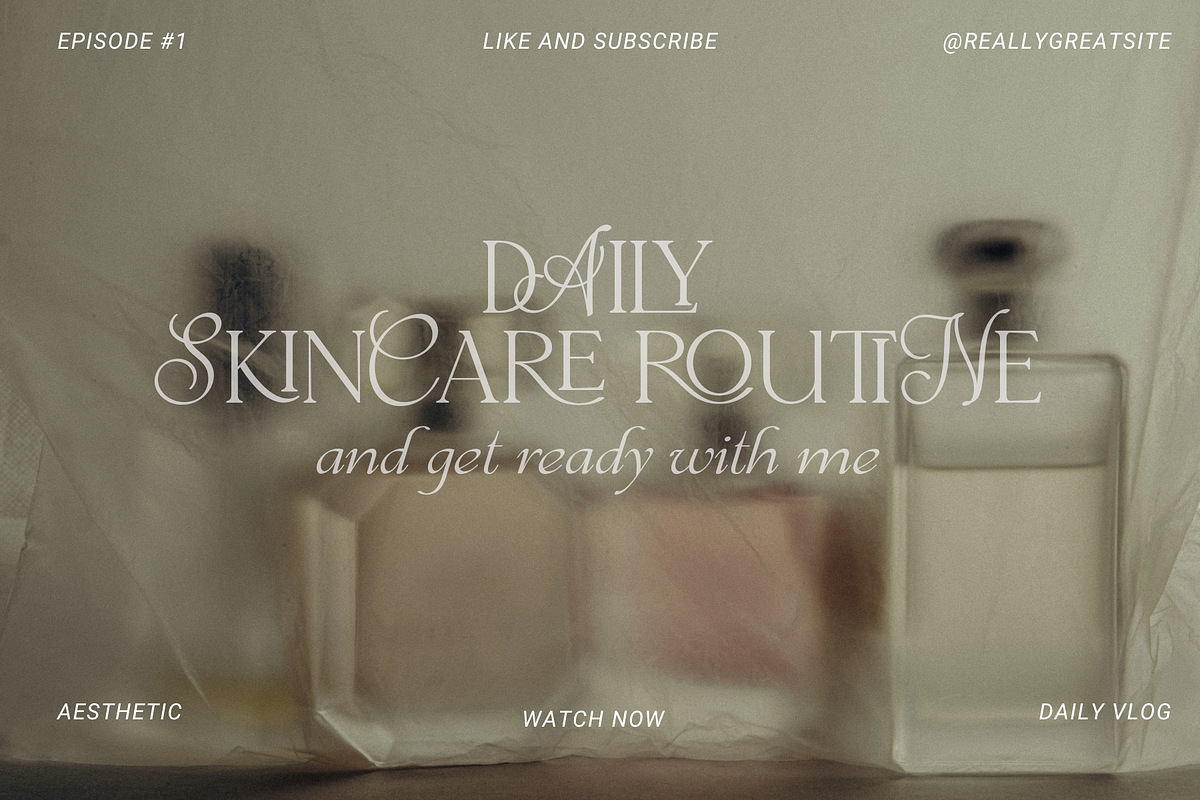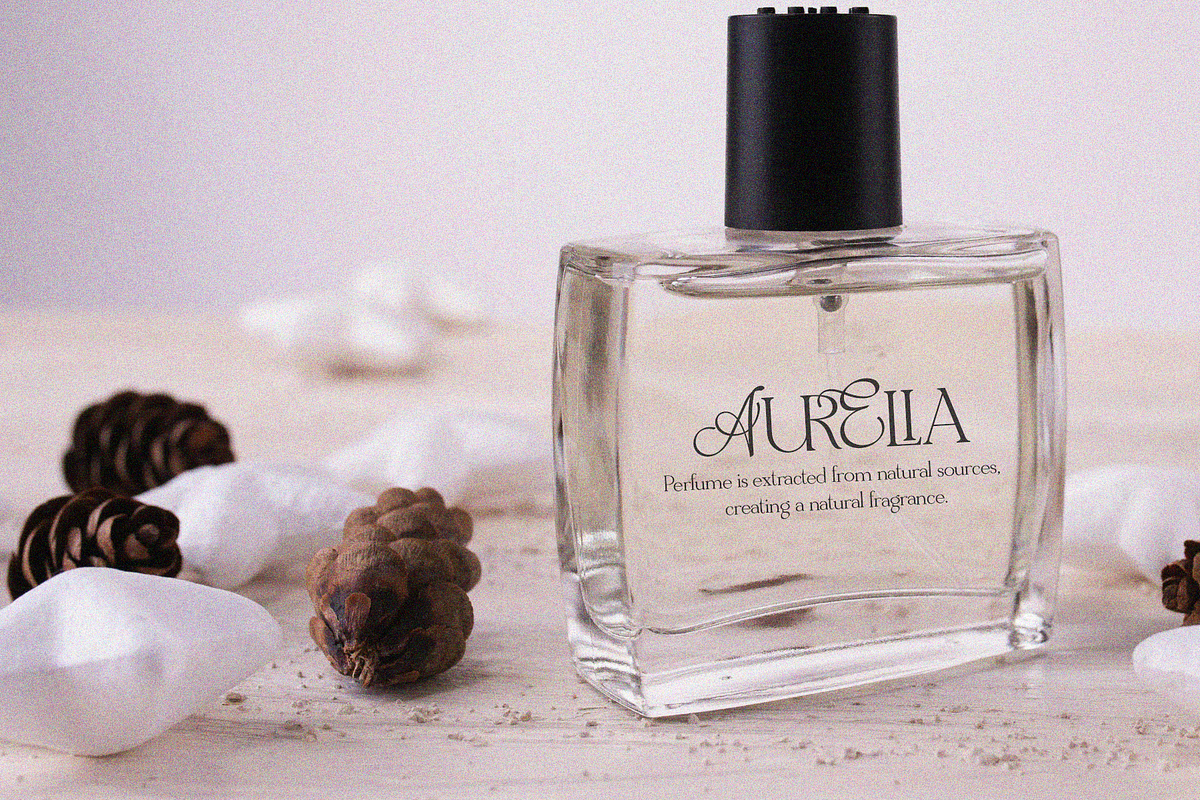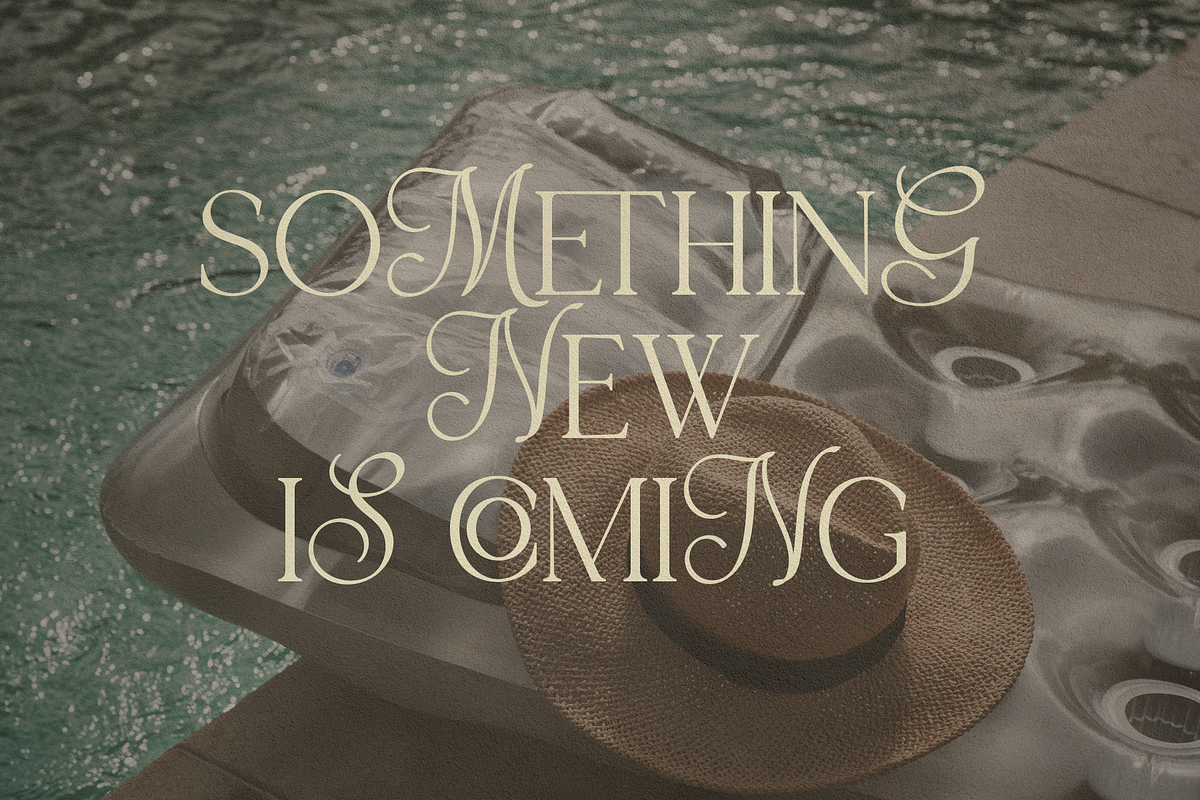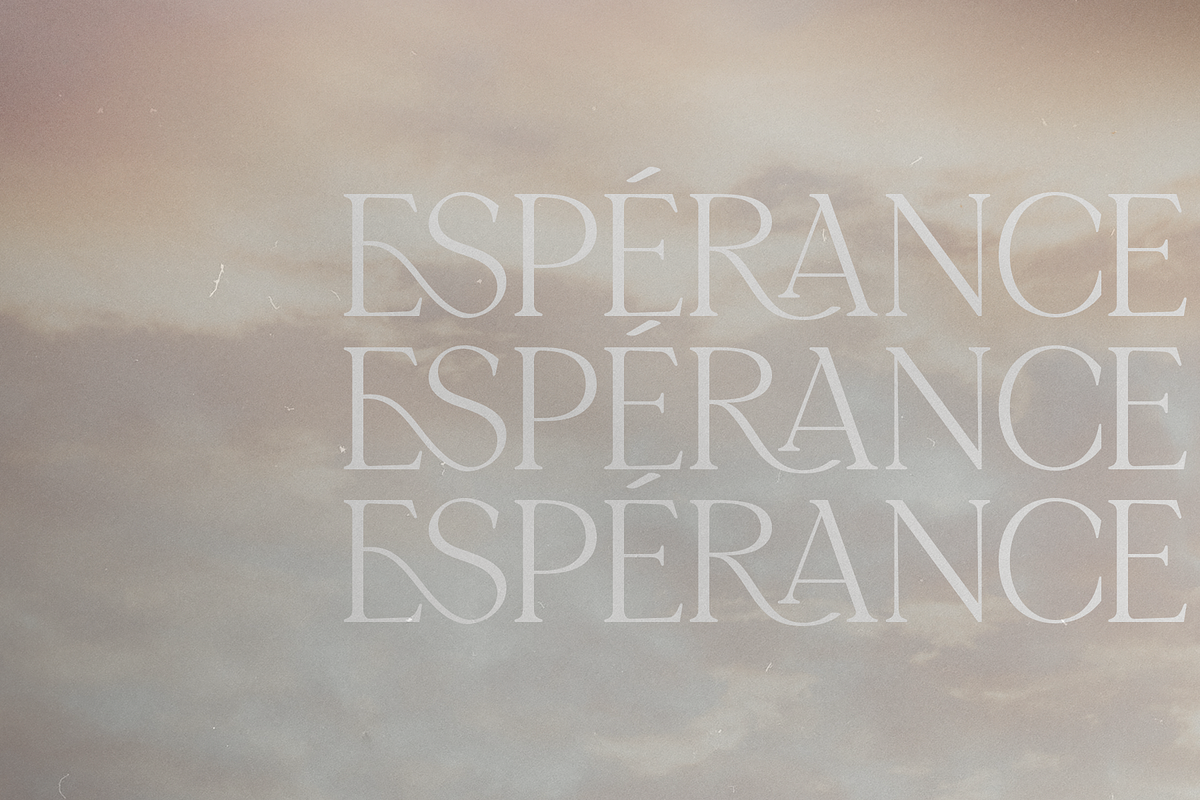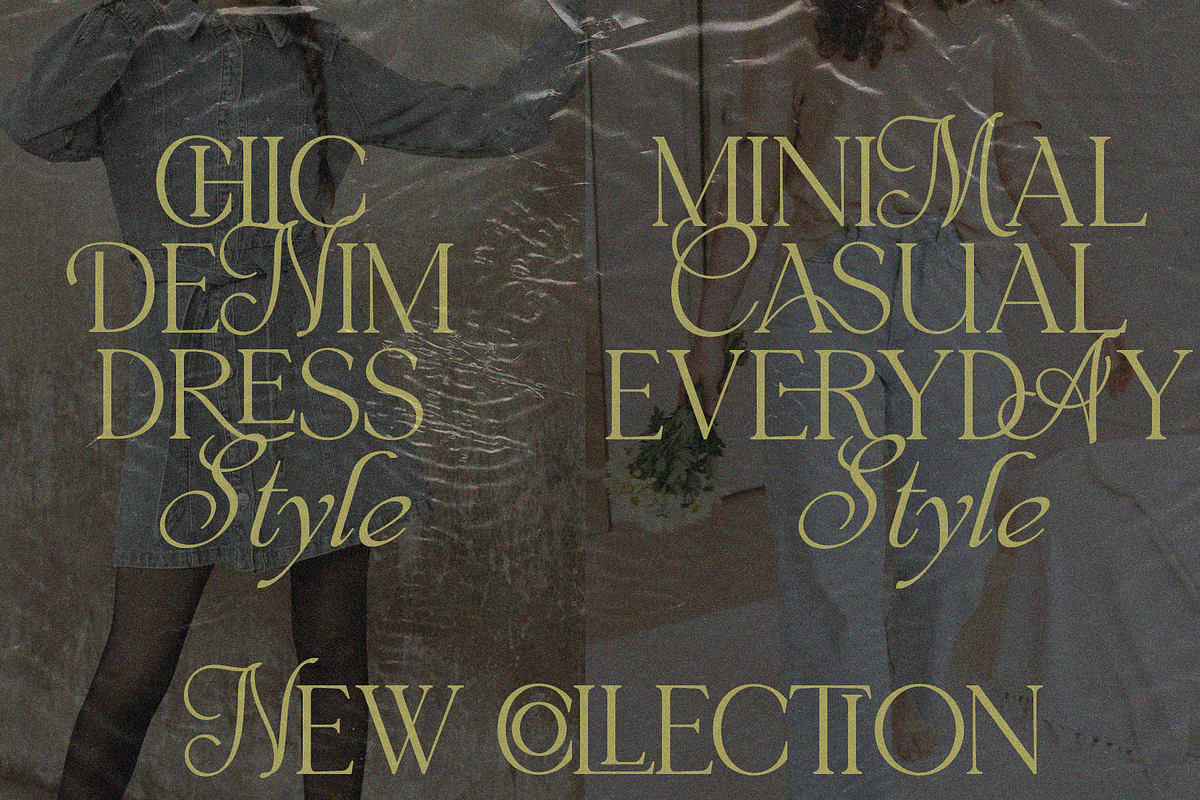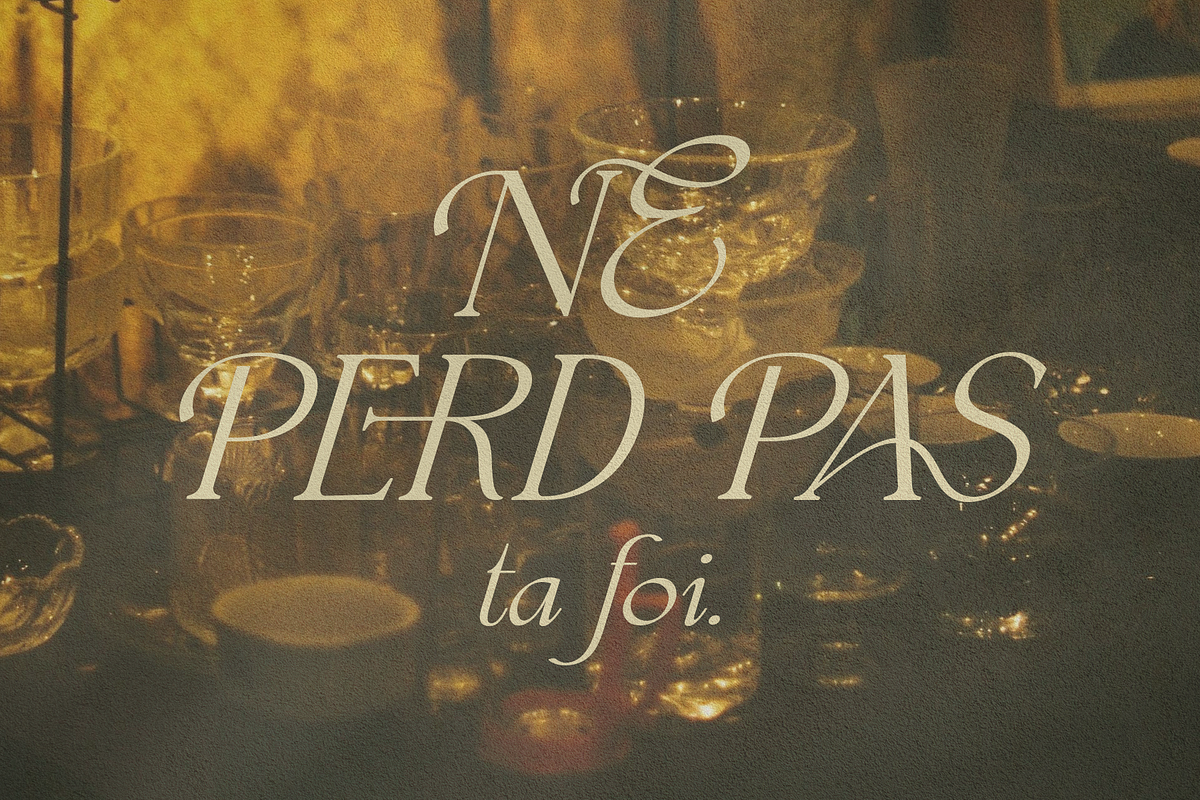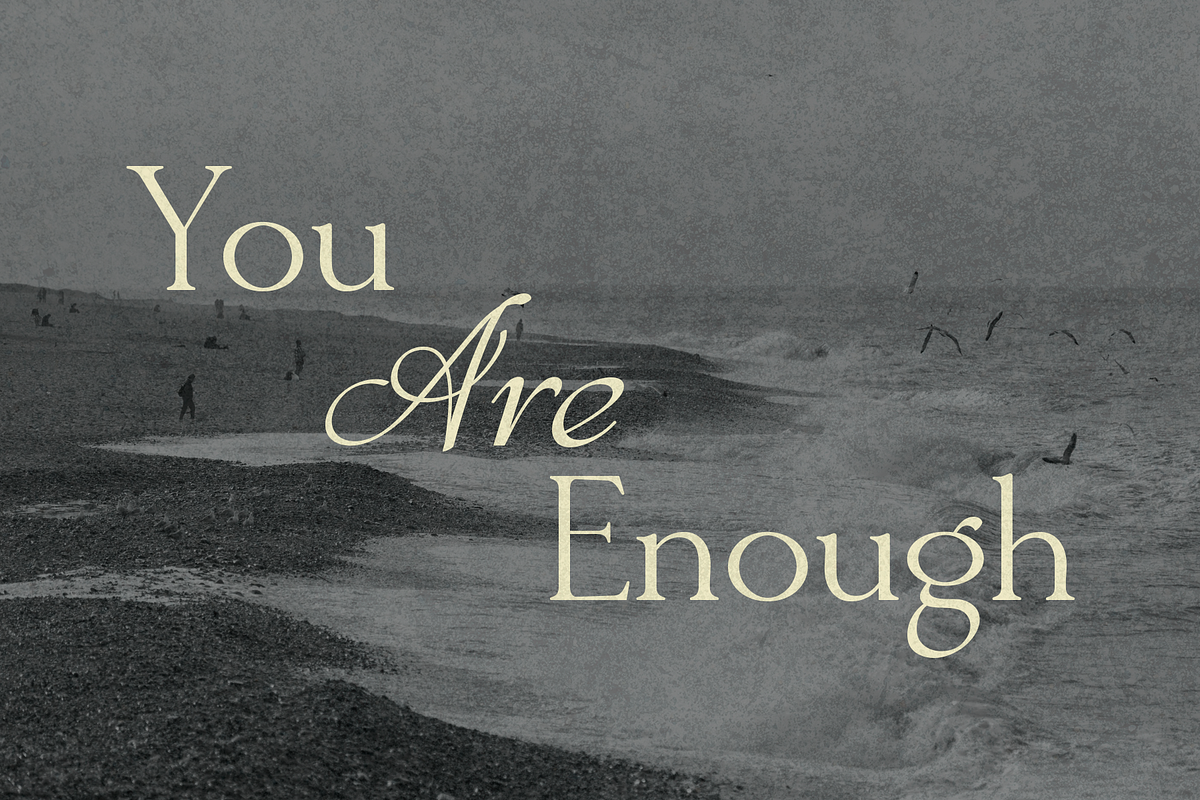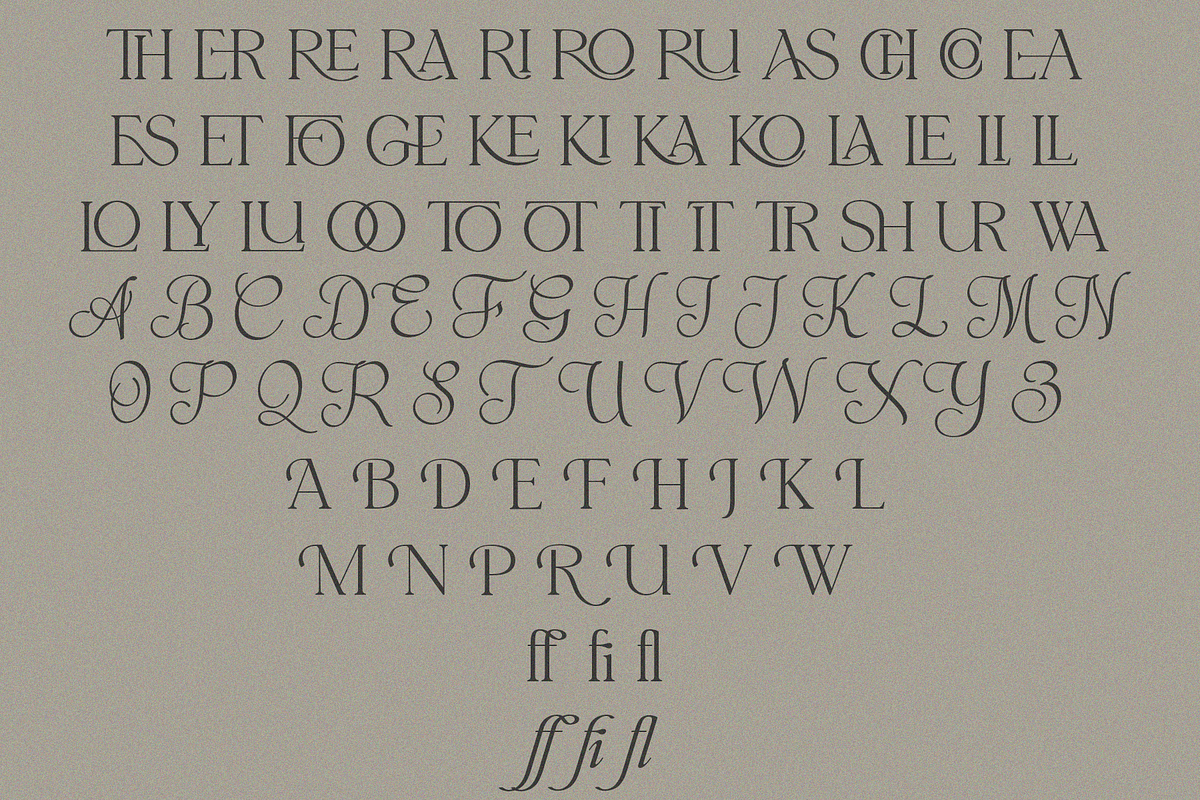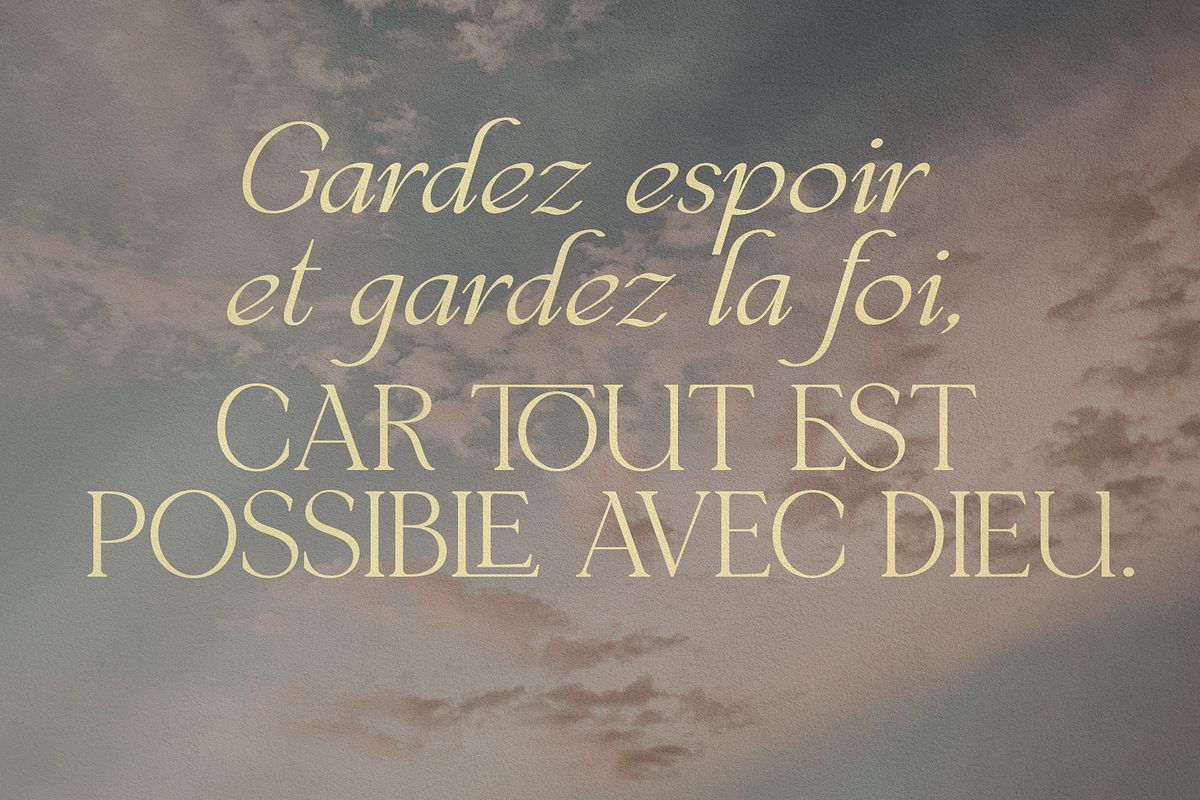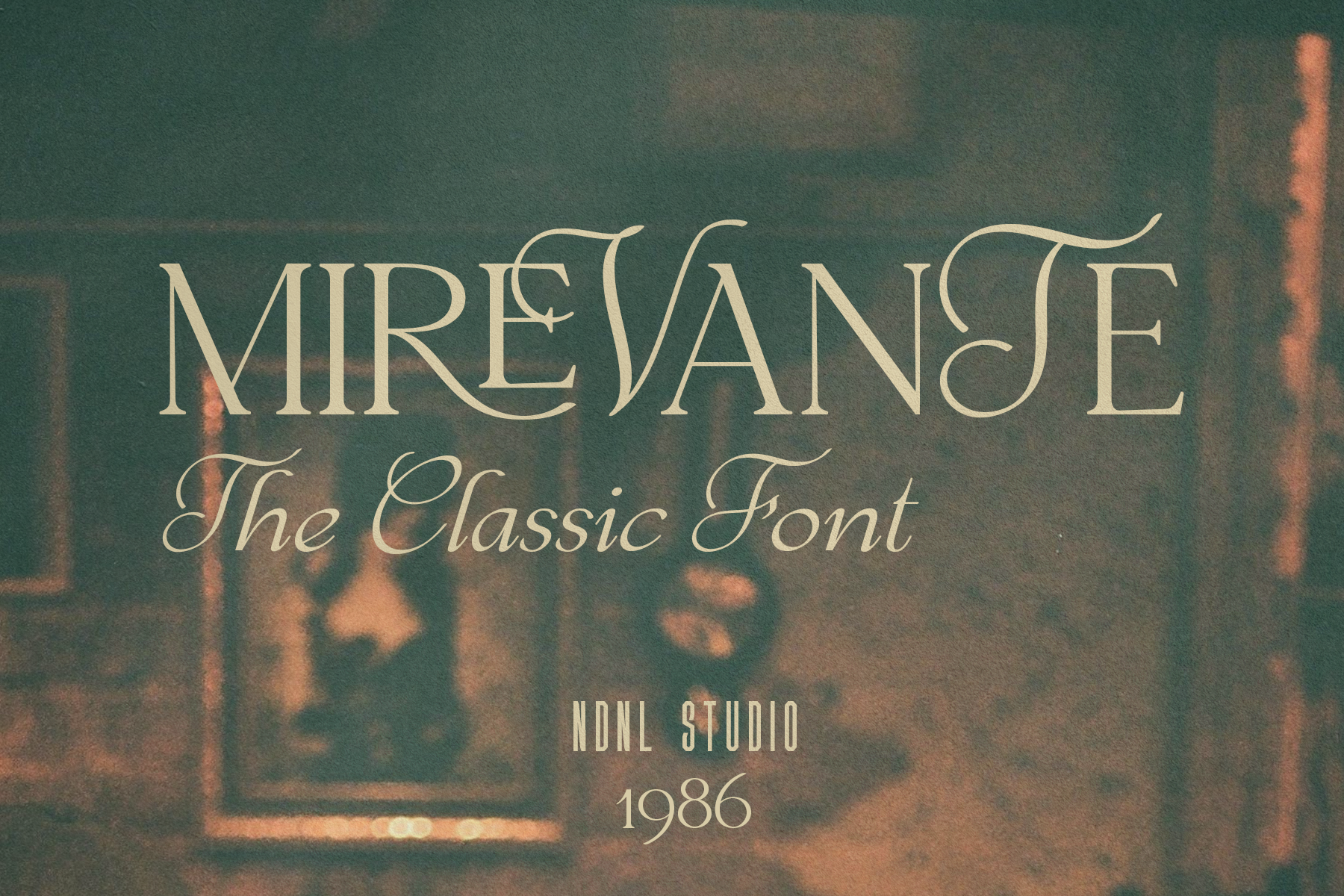
Mirevante – Serif Font
Mirevante is an elegant serif typeface that embodies a timeless classical aesthetic. Featuring refined strokes and graceful curves, Mirevante evokes a sense of luxury and sophistication. It is perfectly suited for premium projects such as branding, logos, fashion editorials, wedding invitations, and high-end design work. More than just a typeface, Mirevante is a statement of elegance and refined taste in every detail.